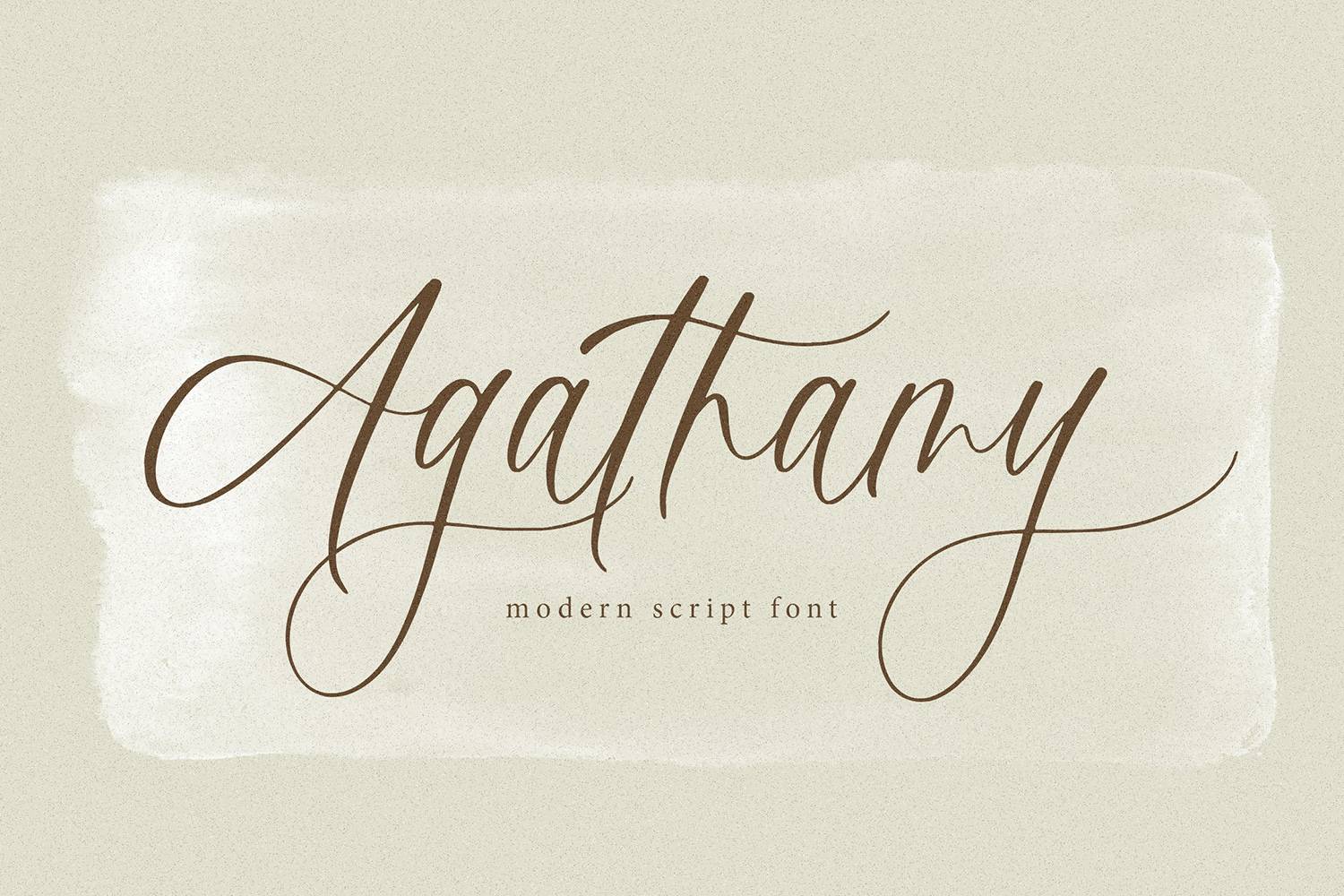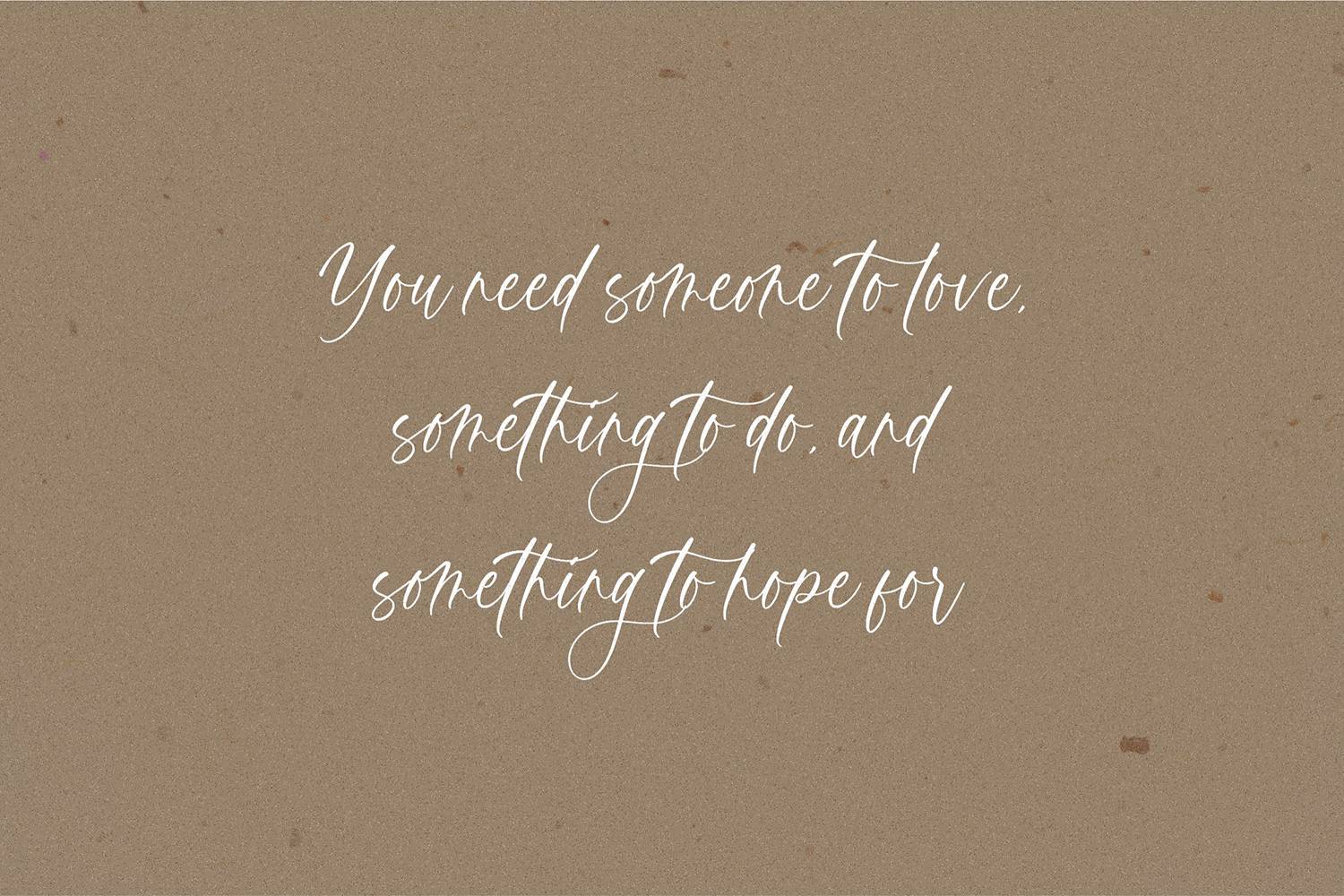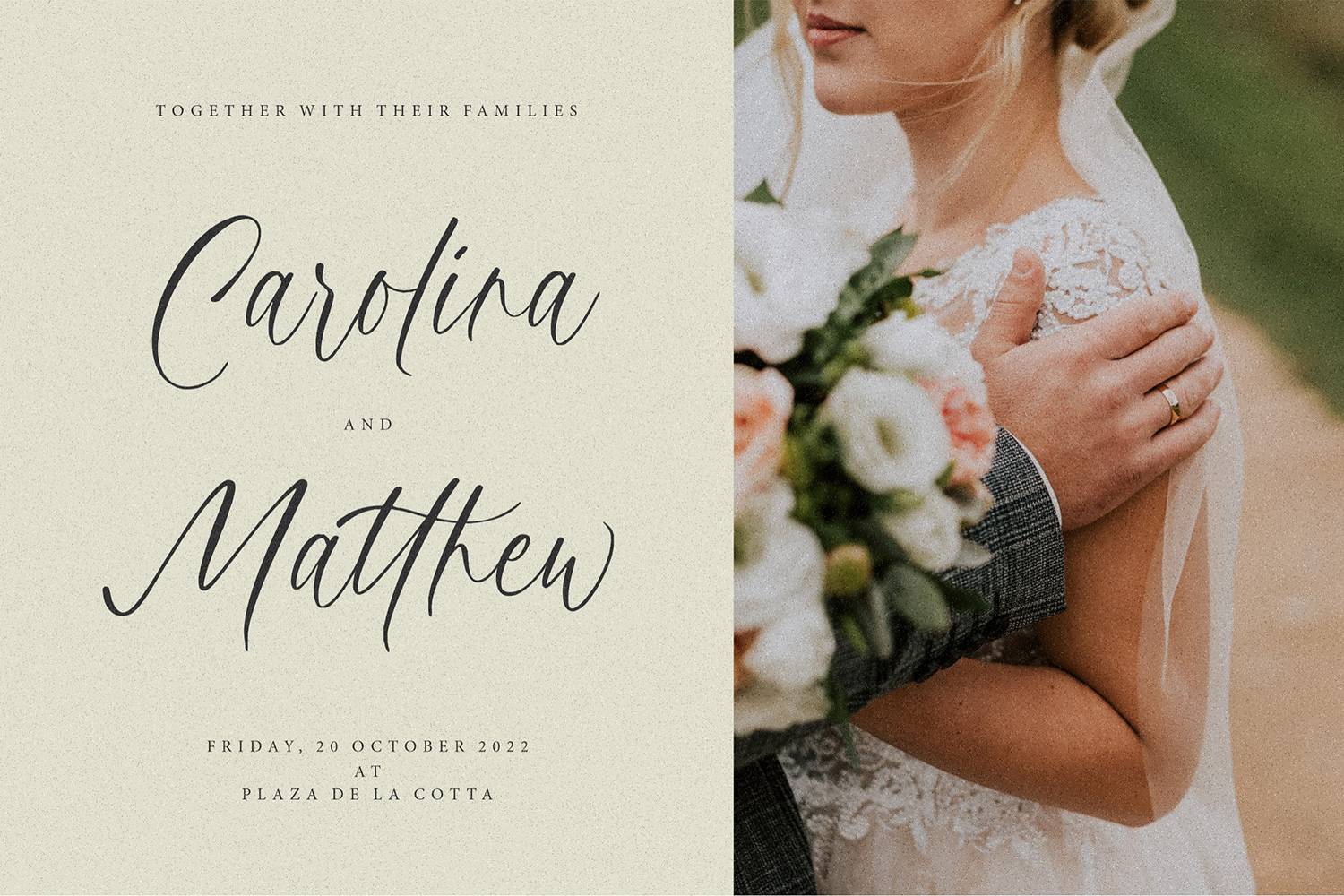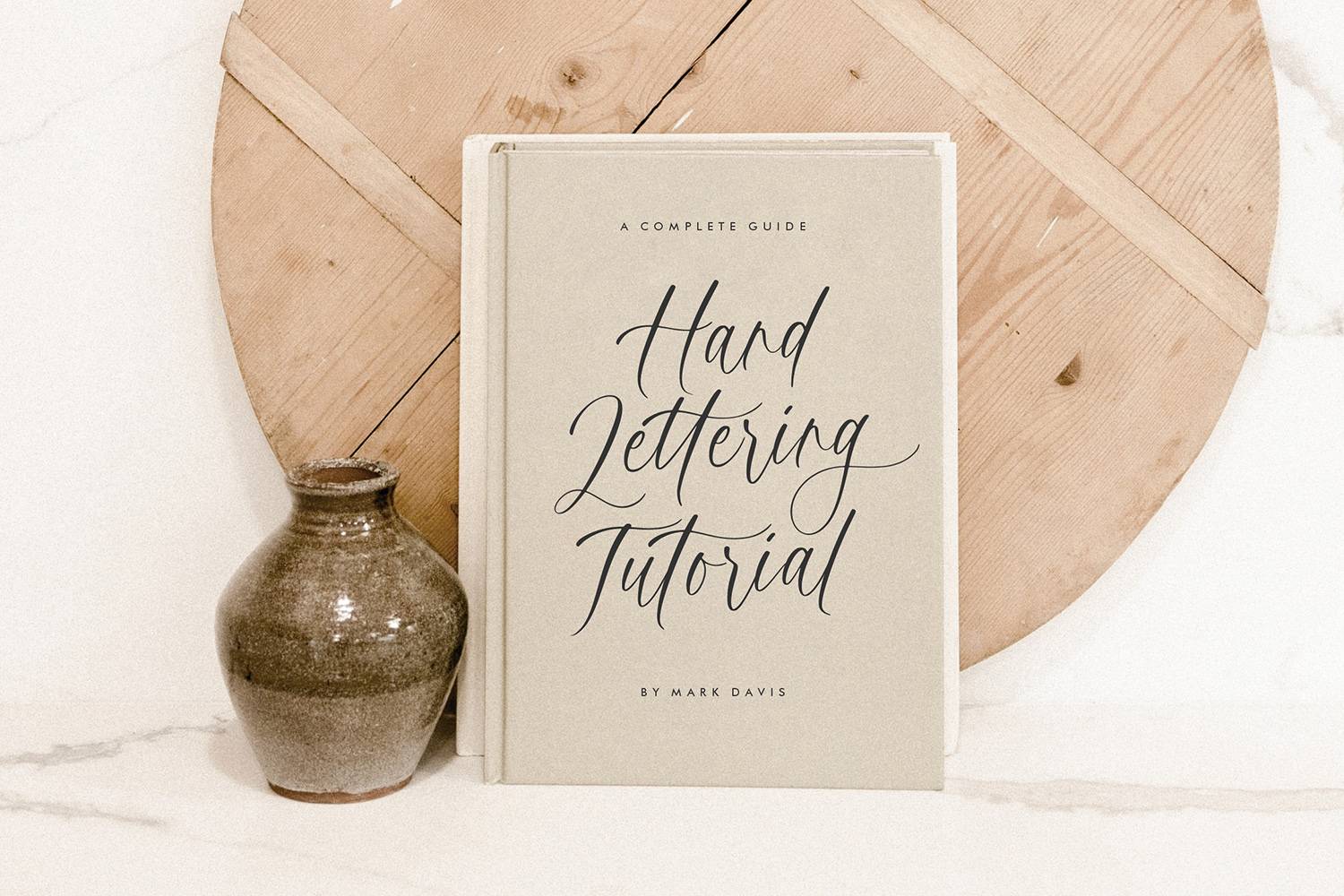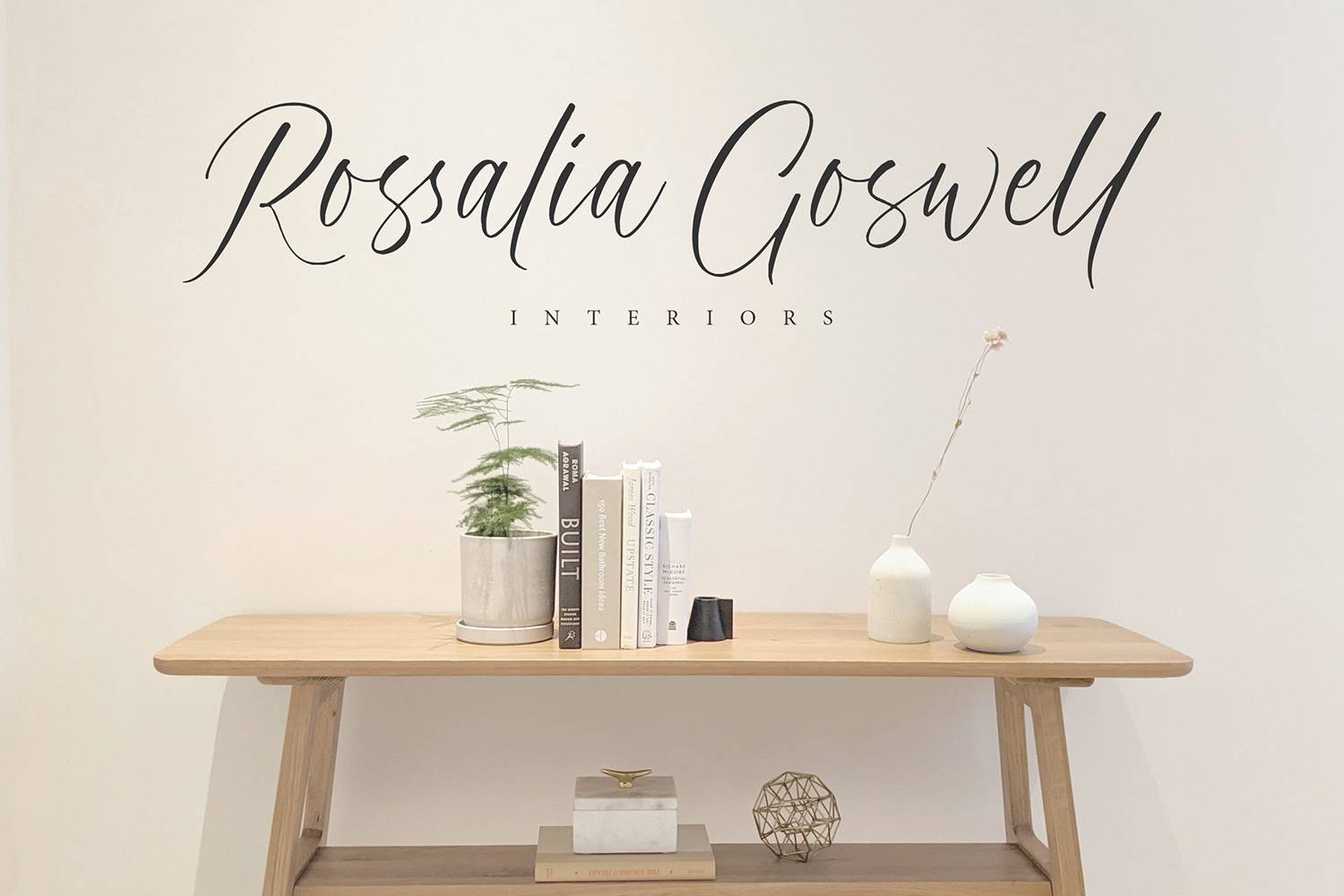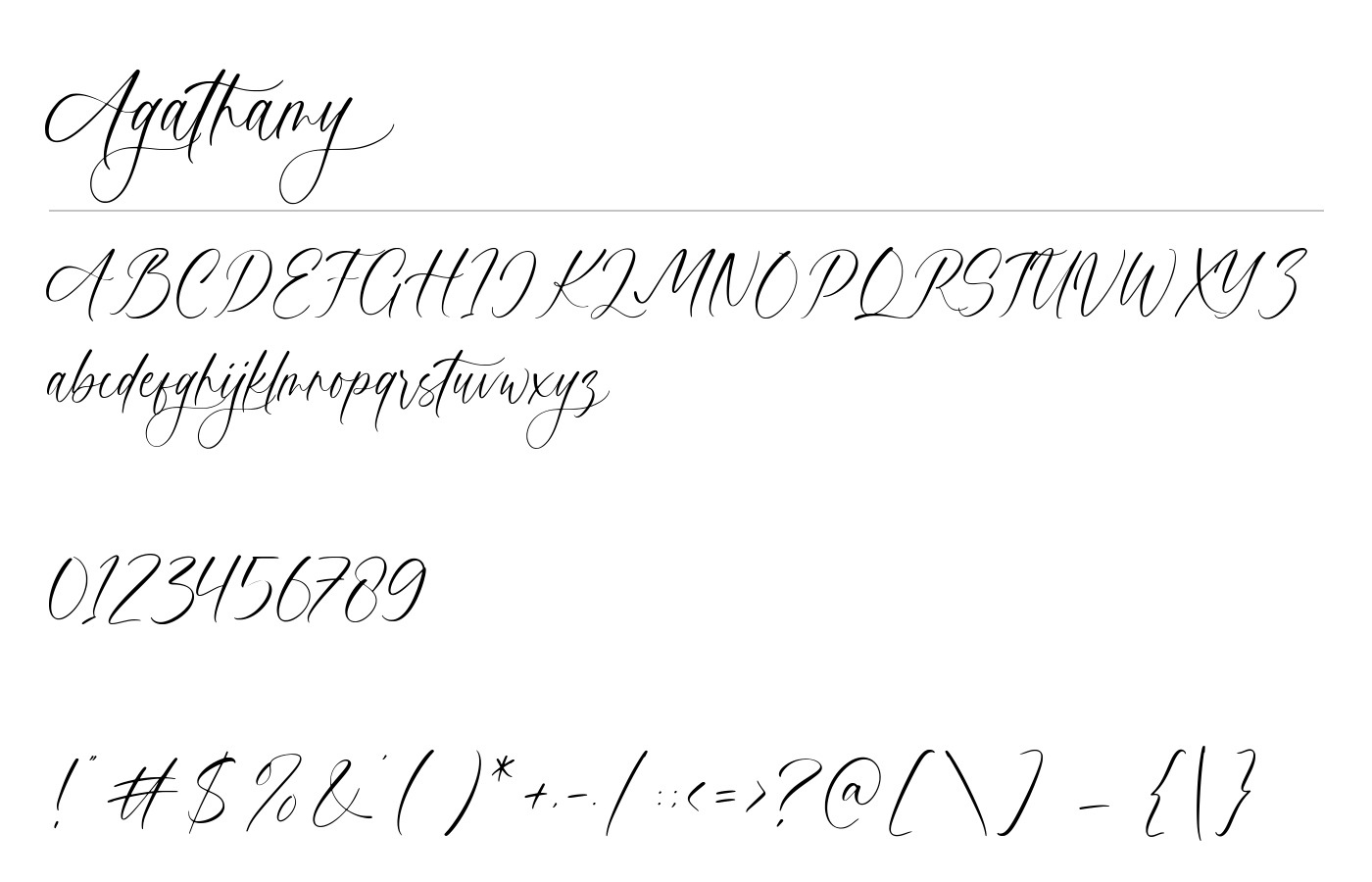
Agathamy is a delicate and elegant script font characterized by its thin, flowing strokes and graceful swashes, giving it a handwritten, calligraphic feel. Its tall x-height and light weight make it perfect for sophisticated branding, wedding invitations, and stylish editorial designs that require a touch of refined femininity. This font works best in large sizes where its intricate details and charming personality can truly shine.
Agathamy Font
About Agathamy Font